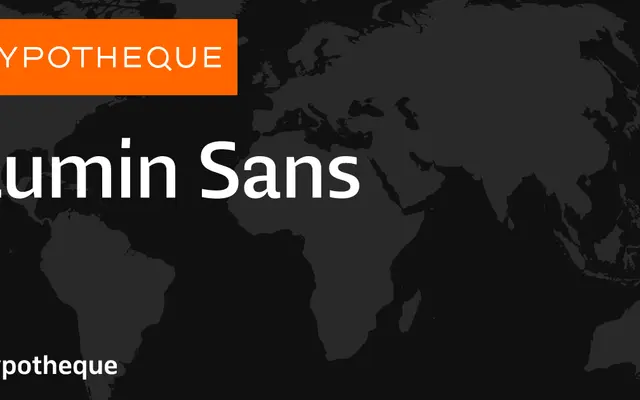
Lumin Sans specimen from Typotheque
A wide-ranging humanist sans system from Typotheque, spanning hairline to black across standard, condensed and extended widths with a variable font companion.
The Lumin Sans system is built around a humanist sans with six upright weights from Hairline to Bold, each with matching italics, plus a companion serif subfamily called Lumin and a dedicated Lumin Display for larger-scale use. A condensed sub-family mirrors the main weights, and the Display branch adds extended and condensed Black cuts for headline work. A variable font is available for those who want a single file across the weight and width axes.
Lumin Sans is a humanist sans-serif with a broad system spanning multiple widths and optical roles, suggesting the careful stroke modulation and proportions typical of the humanist genre.